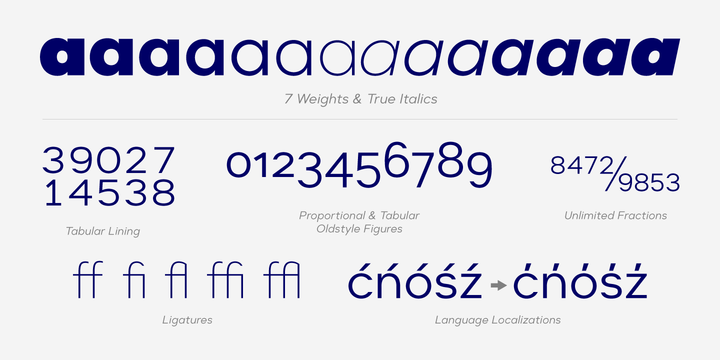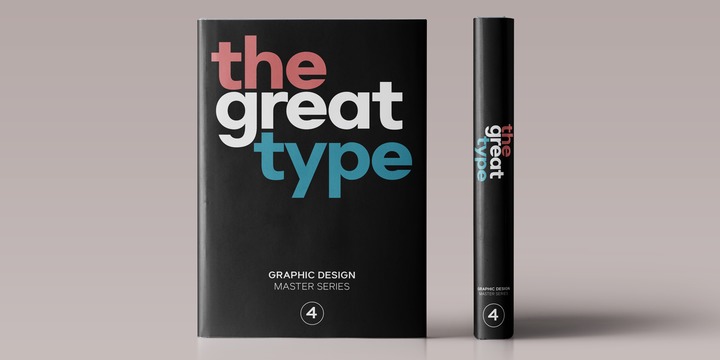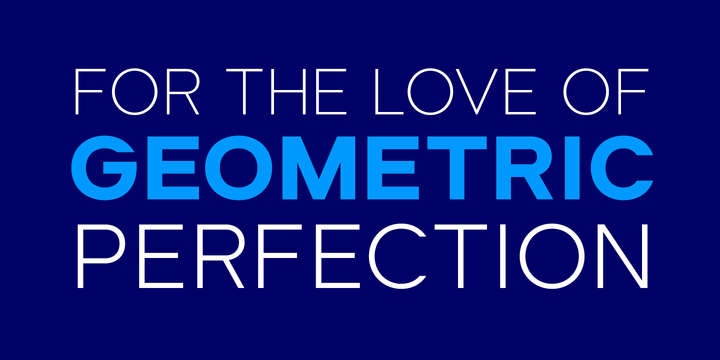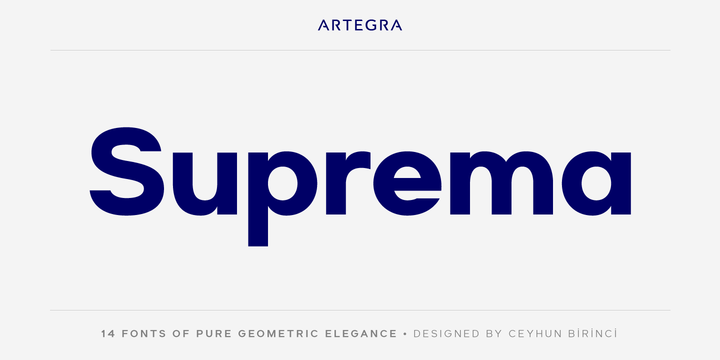
Suprema is 14 fonts modern sans serif family precisely designed for geometric perfection. It has 7 weights with matching true italics. When it comes to Opentype it has lots of features such as tabular lining, proportional oldstyle, tabular oldstyle, ligatures, superscript, subscript, fractions and language localisations for Polish, Dutch, Romanian, Moldovian and Catalan.
Suprema fits perfectly to any kind of modern graphic design project, it can be strikingly beautiful to look at as a logotype or pleasure to read in a long text.
It will definitely add a modern look and sense of professionalism to any piece of typography.